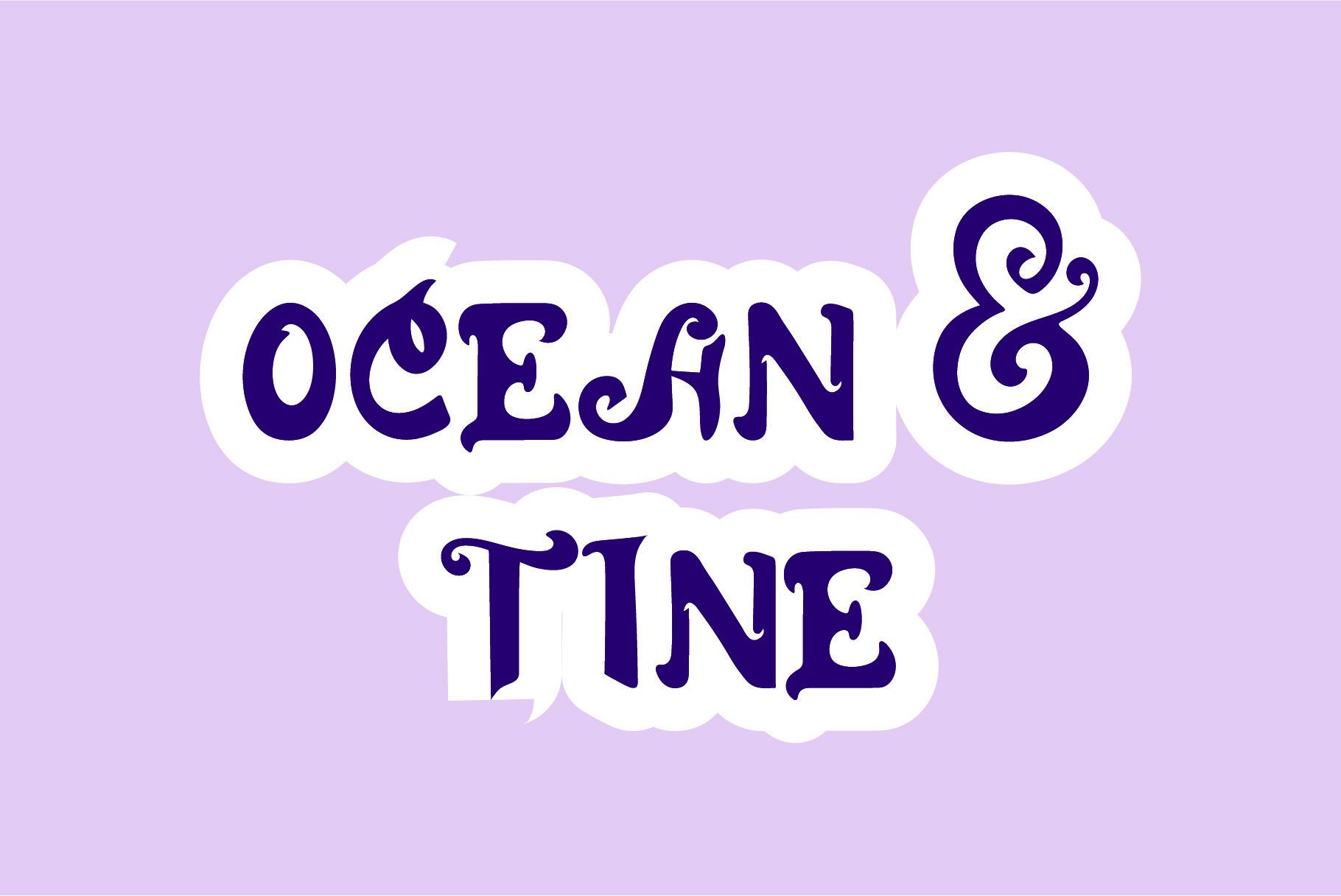
Ocean and Tine - Handwritten Font
Introducing Ocean and Tine - Handwritten Font
This font is great for branding materials, quotes, business cards, headings, blogs, logos, Cricut artwork, posters and more!